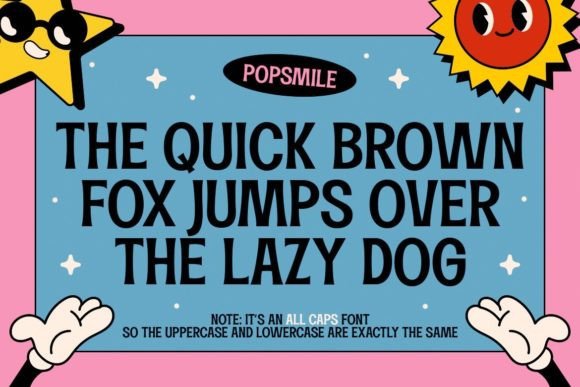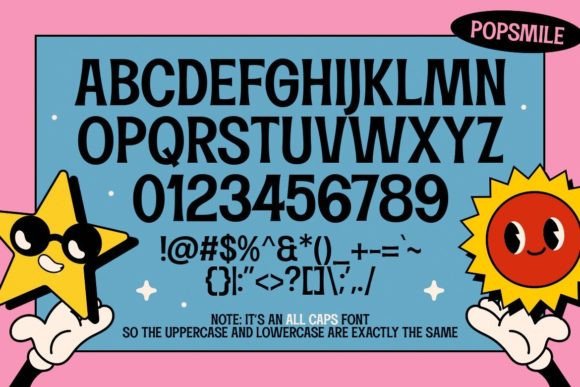
Introduction to Popsmile Font
Popsmile is inspired by the retro pop culture visual back in the 70s and 80s era.
Think about the packaging, posters, signs, advertising, toys, and anything classic and playful stuff back in the day A perfect companion for your vintage and retro vibes graphic designs indeed.